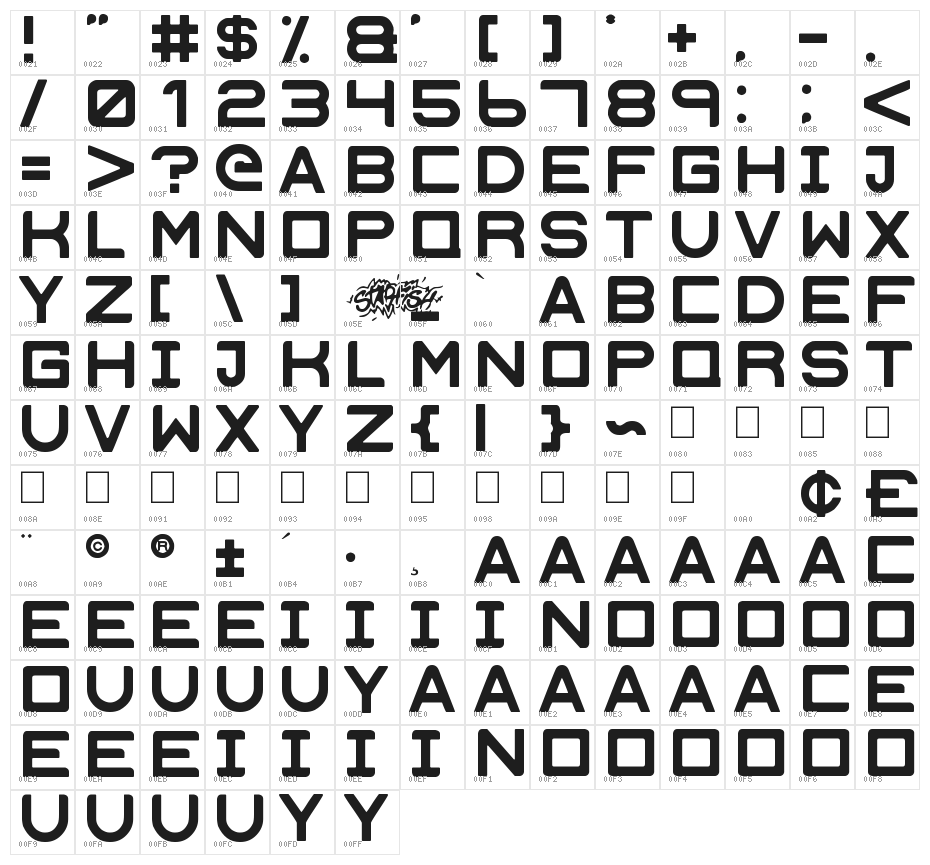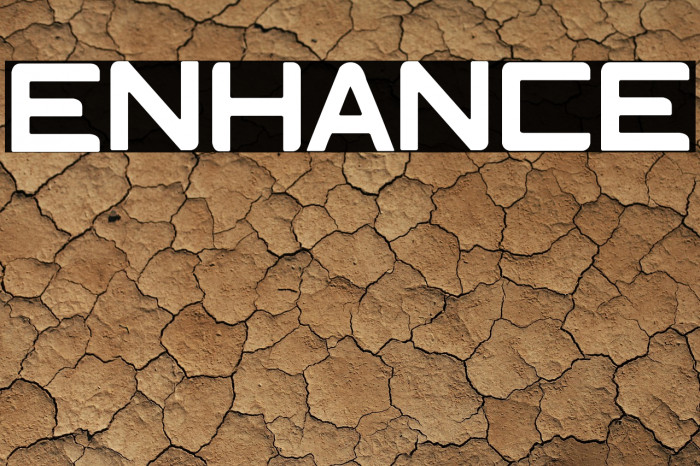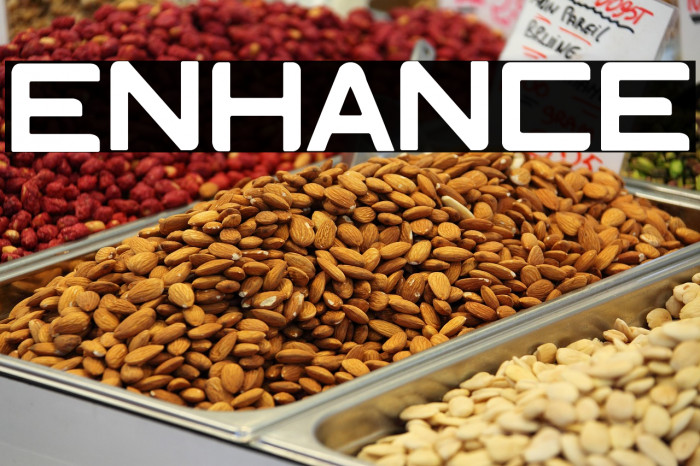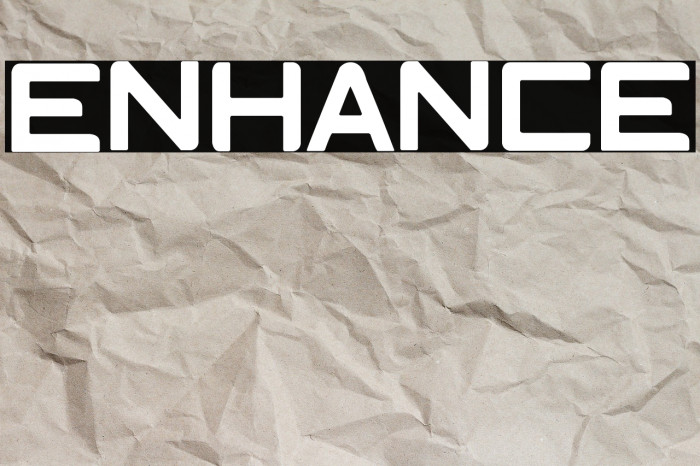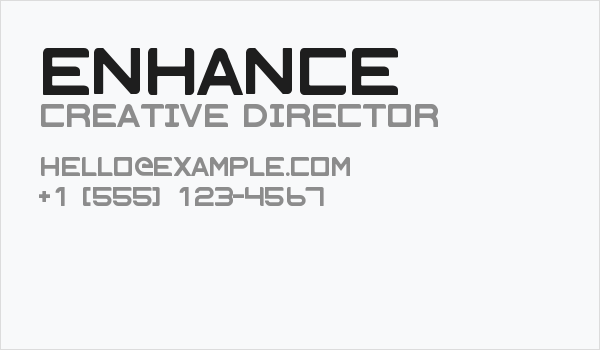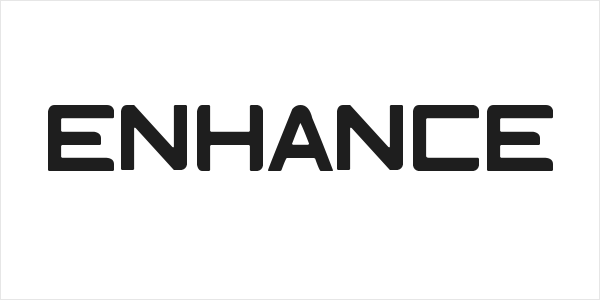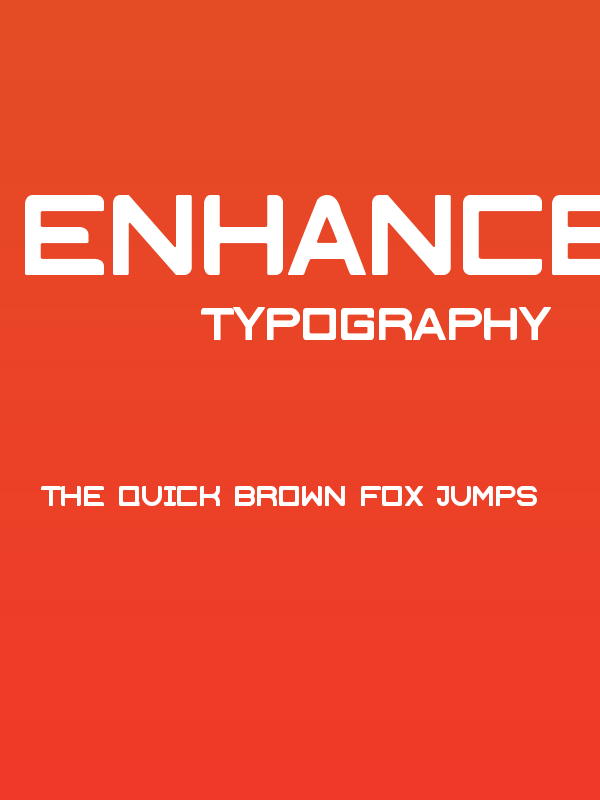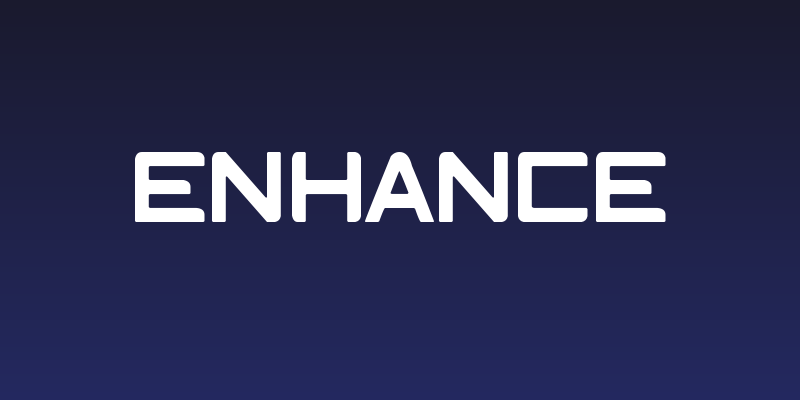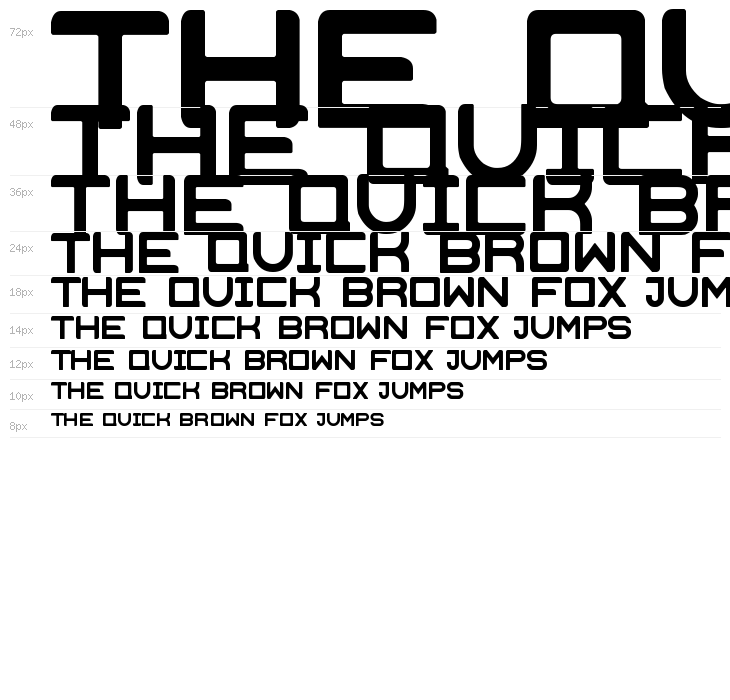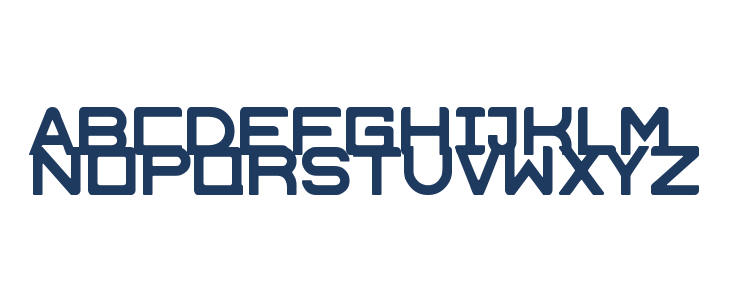
Enhance Font
Enhance Description
This font features a bold, geometric design with a modern and futuristic appeal. The characters are constructed with uniform stroke widths, giving them a monospaced appearance, although they are not strictly monospaced. The rounded edges and corners soften the overall look, providing a balance between technical precision and approachability. The uppercase and lowercase letters maintain a consistent style, with the lowercase being slightly smaller in height. The numerals and special characters are designed to match the boldness and geometric nature of the alphabet, ensuring a cohesive look across all glyphs.
| Use Case | Headlines, Logos, Display text |
| Proposed Projects | Ideal for technology branding, futuristic designs, video game interfaces, and sci-fi themed projects. |